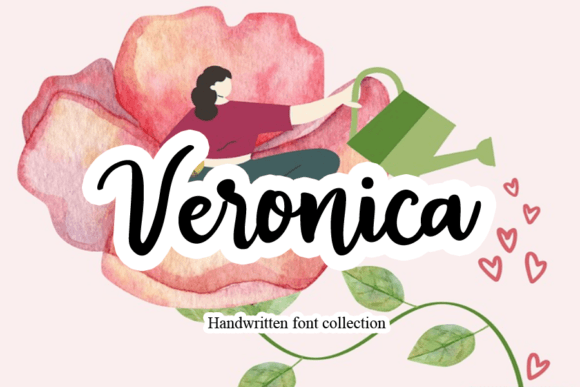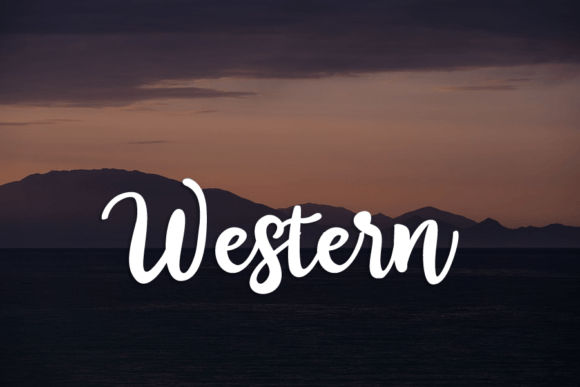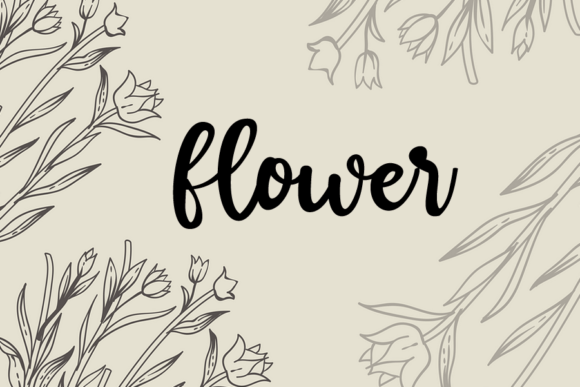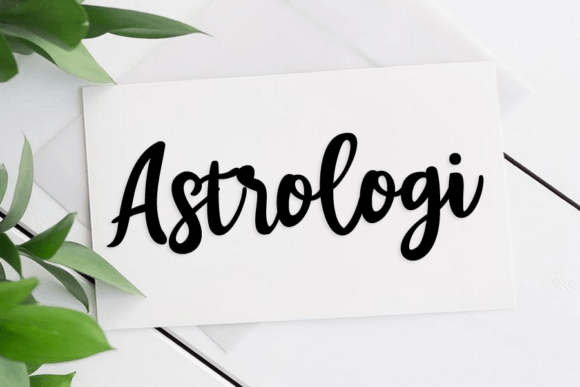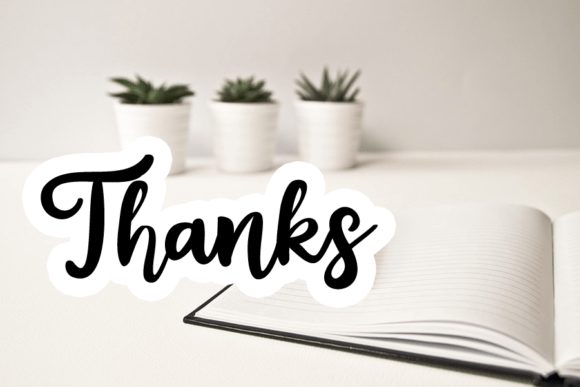
Veronica Font
About Veronica Font
The Veronica Font Download is a graceful script typeface designed to add charm and sophistication to your creative projects. With its smooth curves and elegant strokes, this font brings a refined aesthetic that elevates both digital and print designs. Perfect for those who want a refreshing and stylish touch, Veronica is versatile enough for branding, invitations, logos, and more.
This font embodies both delicacy and class, making it suitable for a wide range of creative uses. Whether you’re working on personal projects or professional designs, the Veronica Font adds an unmistakable sense of beauty and polish.
Features of Veronica Font
• Elegant script style with smooth, flowing lines
• Delicate and refined look for timeless appeal
• Highly versatile for both print and digital design
• Perfect readability without losing artistic flair
• PUA encoded, giving easy access to all special characters and swashes
Best Uses for Veronica Font
• Wedding invitations – Add elegance to your special day
• Branding and logos – Create stylish marks with a timeless touch
• Greeting cards – Express warmth with a delicate handwritten feel
• Social media graphics – Enhance digital posts with graceful typography
• Event posters – Promote occasions with refined style
• Fashion and lifestyle designs – Perfect for high-end branding projects
Why Choose Veronica Font
The Veronica Font Download is ideal for designers who want to create work that feels polished and inspiring. Its elegant script style makes it stand out, yet it remains highly readable across formats. Unlike overly complex fonts, Veronica balances artistic beauty with practical usability, making it a strong choice for both personal and commercial use.
By choosing Veronica, you get a font that adapts to multiple styles and themes. Whether you need a delicate feminine tone or a bold branding element, this typeface delivers quality and versatility.
The Veronica Font Download is more than just a script typeface—it’s a creative tool that helps transform ideas into refined designs. From weddings and branding projects to digital campaigns and social media posts, this font ensures that your work shines with elegance.